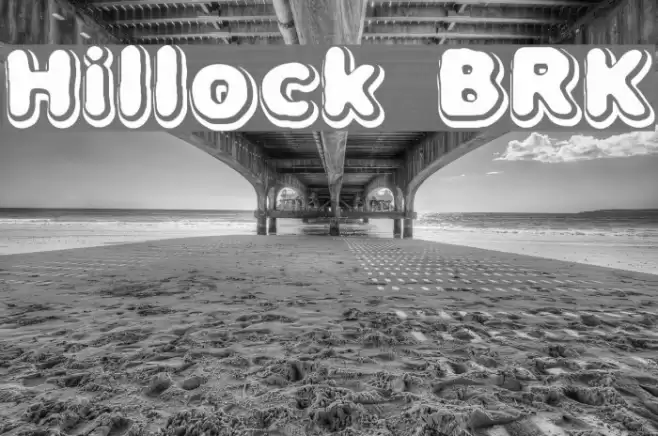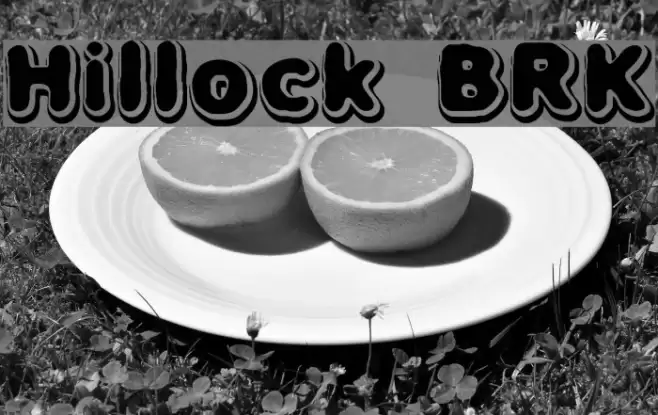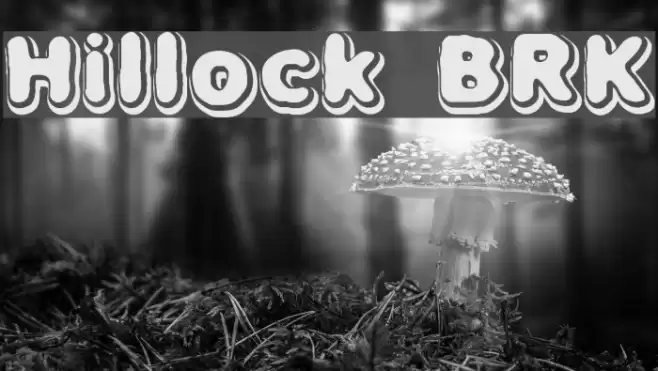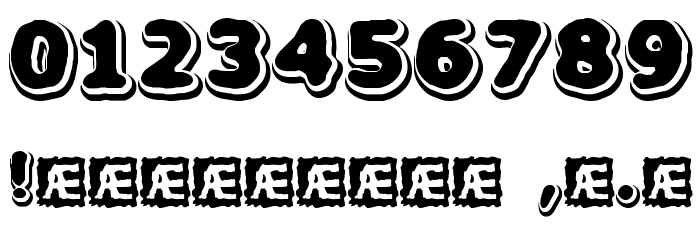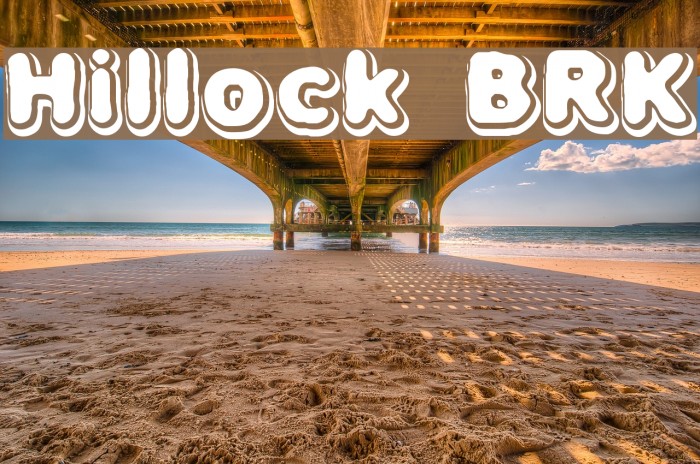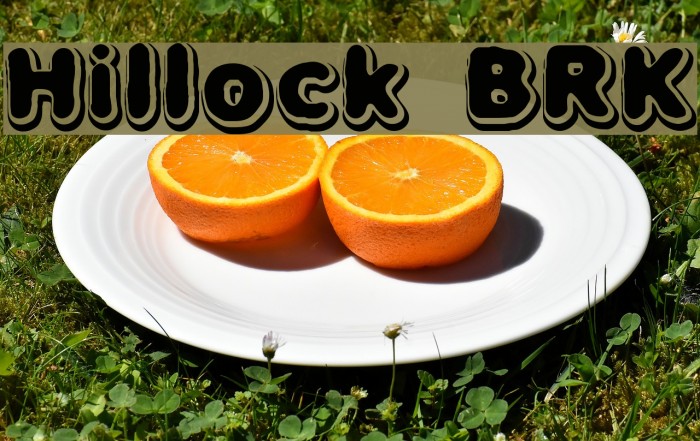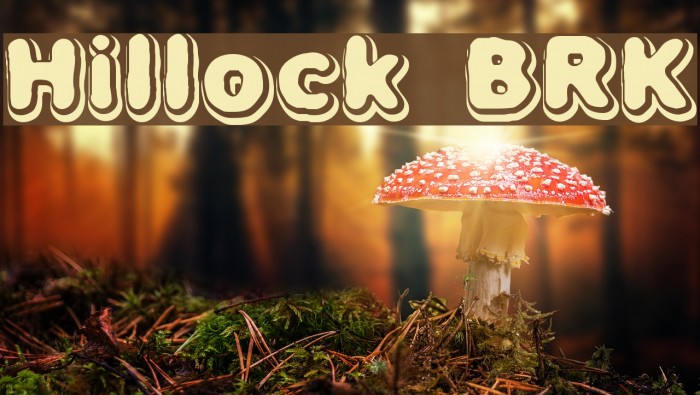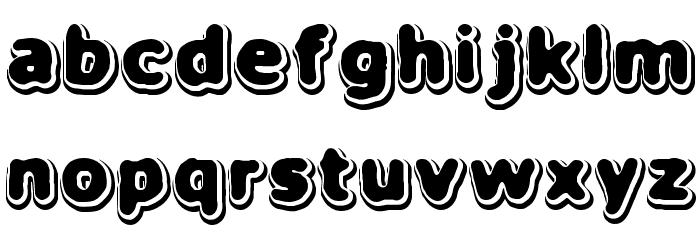
Hillock BRK Font
Hillock BRK Description
This playful and bold font features a thick, bubble-like appearance with a strong outline that gives it a three-dimensional effect. The characters are rounded and full, creating a sense of fun and whimsy. The uppercase and lowercase letters maintain a consistent style, with the lowercase being slightly smaller but equally bold. Numbers and special characters follow the same design, ensuring uniformity across all elements. The font's unique style makes it stand out, perfect for projects that require a touch of creativity and boldness.
A playful, bold font with a bubble-like, three-dimensional appearance from Outline fonts.
- Proposed Projects: Ideal for children's book covers, playful branding, posters, and party invitations.
- Overall Style: Playful, Fun